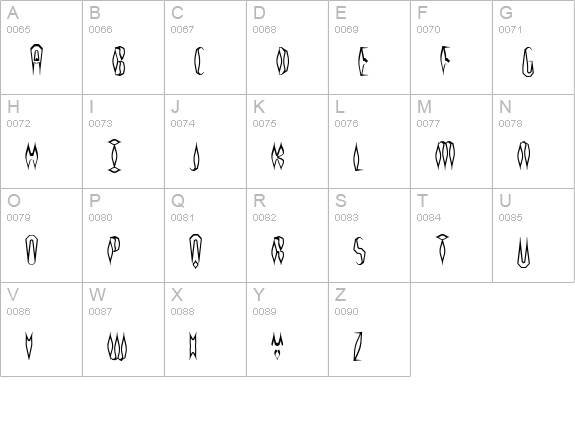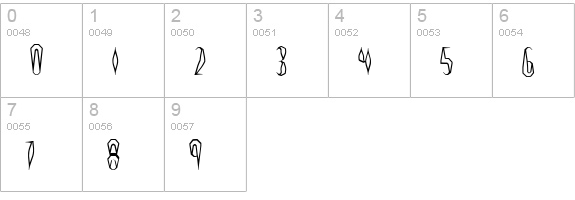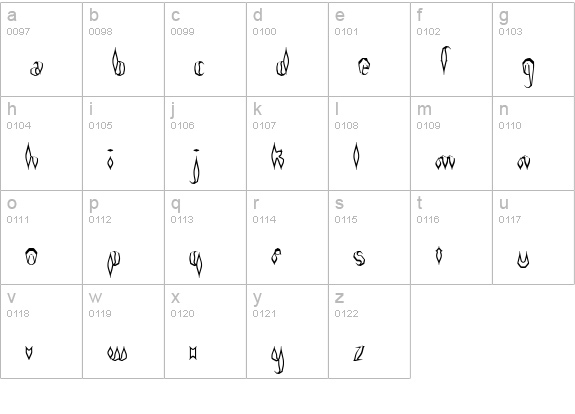
Quill Experimental O -BRK- Font Details
Quill Experimental O -BRK- font is a unique and innovative typeface that pushes the boundaries of traditional typography. Designed with experimentation in mind, this font features bold and dynamic letterforms that are sure to make a statement in any design project. With its unconventional shapes and distinctive curves, Quill Experimental O -BRK- font adds a touch of creativity and originality to your work. It is perfect for graphic designers, artists, and creative individuals who are looking to break away from the norm and explore new possibilities in their designs. One of the best things about Quill Experimental O -BRK- font is that it is free. Yes, you read that right! This font is freely available to download at FontsMarket.com. You can easily access and enjoy the benefits of this font without any cost, making it a valuable asset for both personal and commercial use. Whether you are designing a logo, creating a poster, or working on a web project, Quill Experimental O -BRK- font will add a touch of originality and uniqueness to your designs. Its versatility allows it to be used across various design applications, from print to digital media. With Quill Experimental O -BRK- font, you have the freedom to express your creativity and create eye-catching designs that stand out from the crowd. So why wait? Download this font from FontsMarket.com today and unlock a world of possibilities for your design projects.